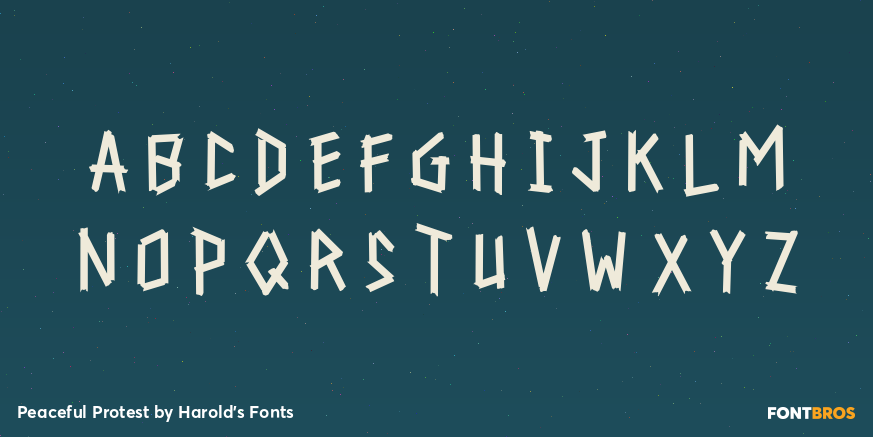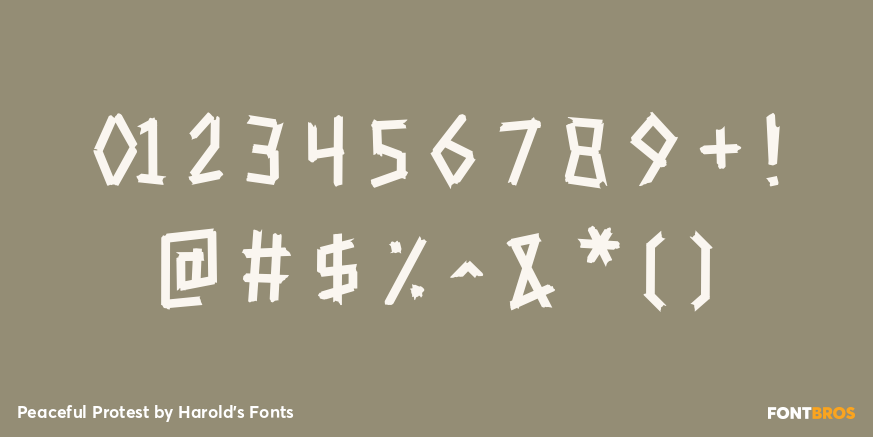
Peaceful Protest
Font Family by Harold's Fonts
PEACEFUL PROTEST is a bold, impactful font. The straight lines and strong verticals are reminiscent of runes, but were inspired by a poster designed by the Milwaukee-based artist Francisco Ramirez. Using quickly torn masking tape and assembled with urgency, his poster captured both the message and the moment, and has now been acquired by the Whitney Museum of American Art. So grateful he let me make this font!
Use this font to say your own message loud and proud. It has LARGE and small caps. You can use all of one or mix and match for a more hand-lettered feel. And there are lots of Opentype alternates and ligatures for even more of that.